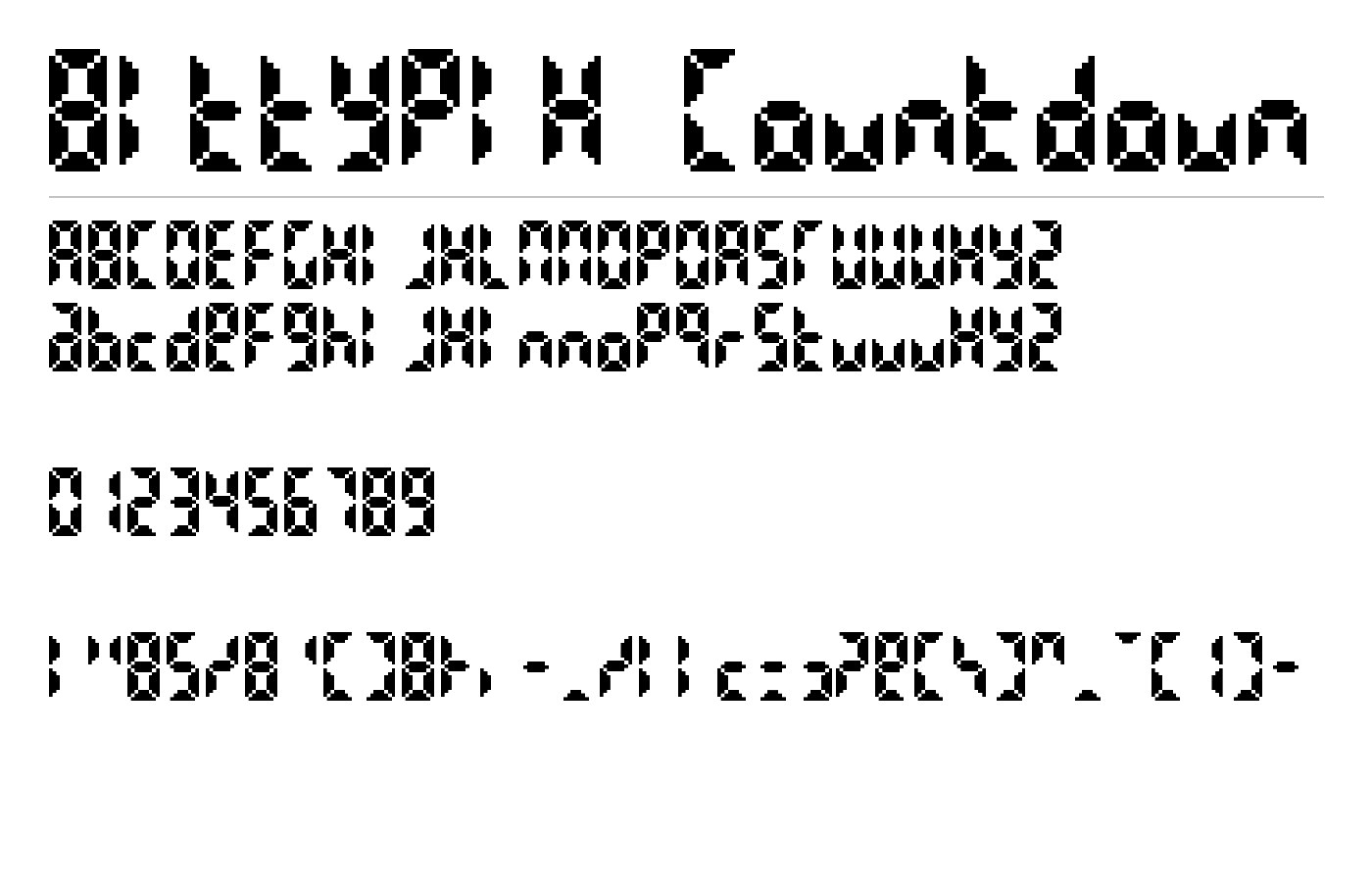
Bittypix Countdown is a pixelated, blocky display font that brings a retro, digital vibe reminiscent of old-school countdown timers or arcade screens. Its monospaced, square-shaped characters are sharply segmented, with a consistent weight and evenly spaced strokes, making it ideal for tech-themed designs, video games, or digital countdowns where a nostalgic, futuristic feel is desired. This font works best in headlines, logos, and user interfaces where a bold, eye-catching style rooted in classic electronic aesthetics is needed.
Bittypix Countdown Font
About Bittypix Countdown Font